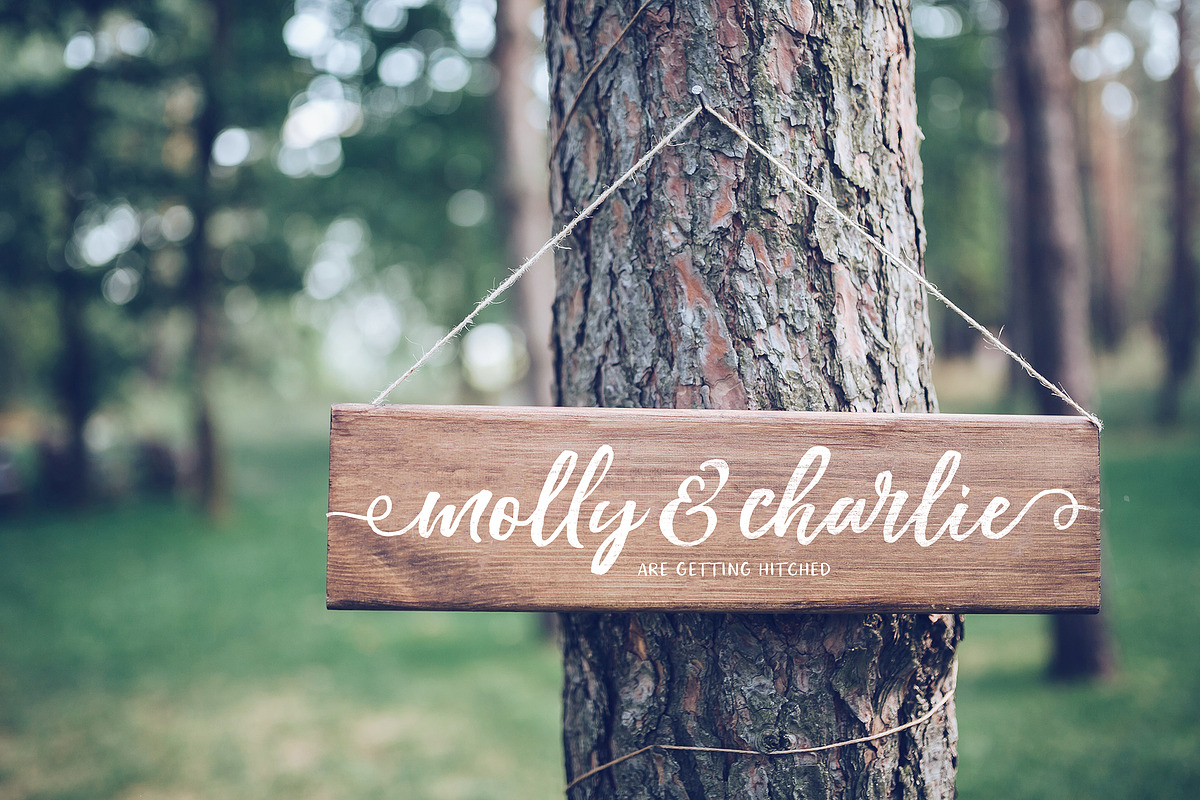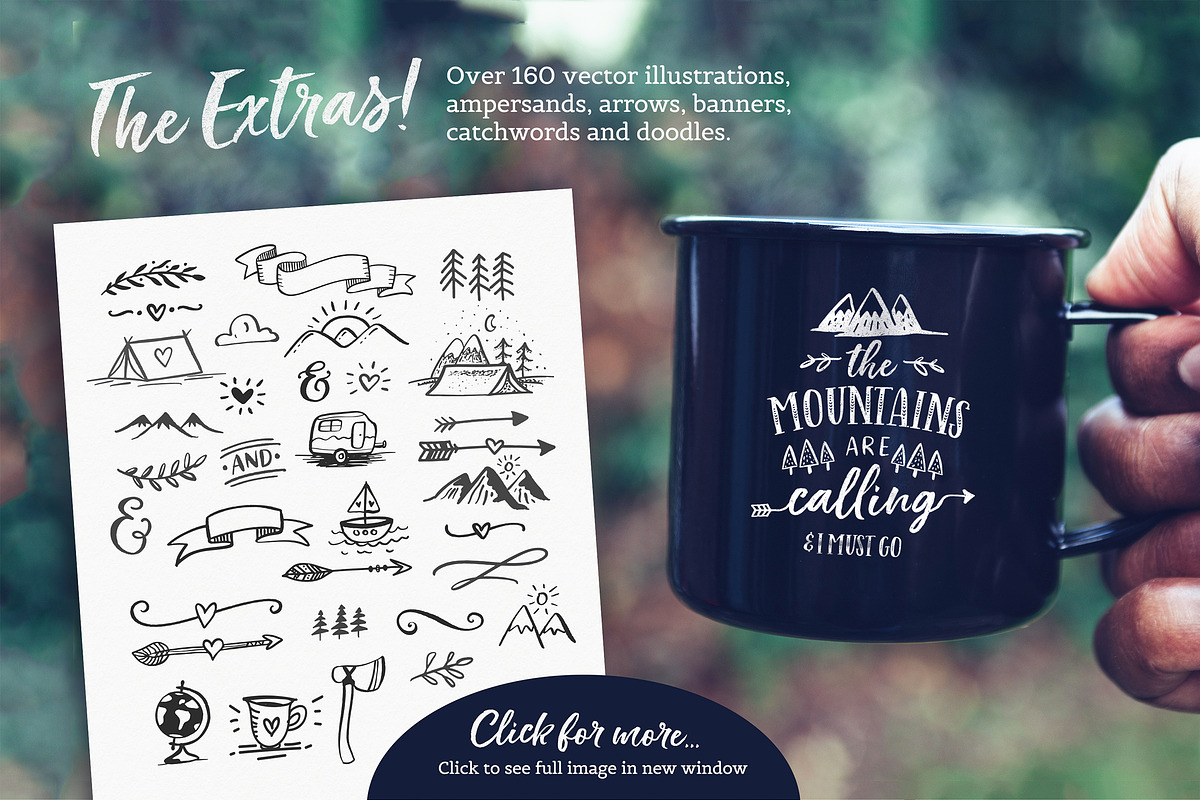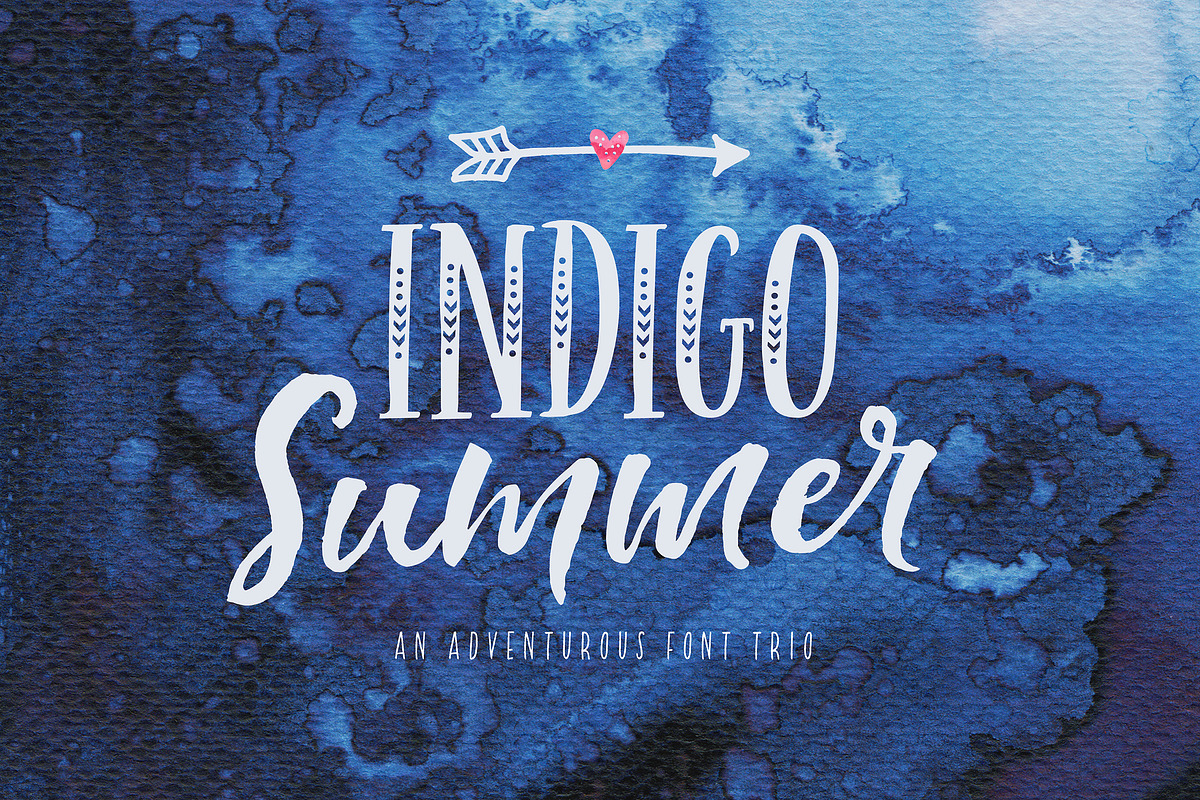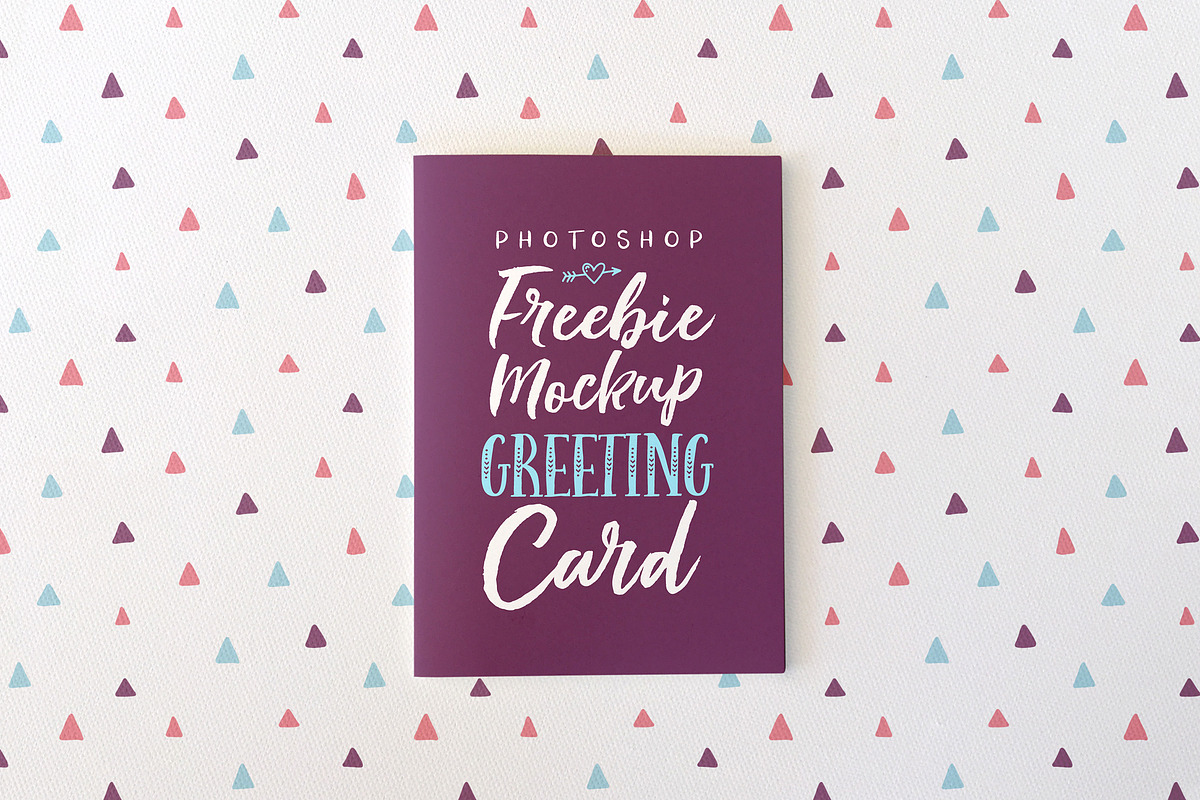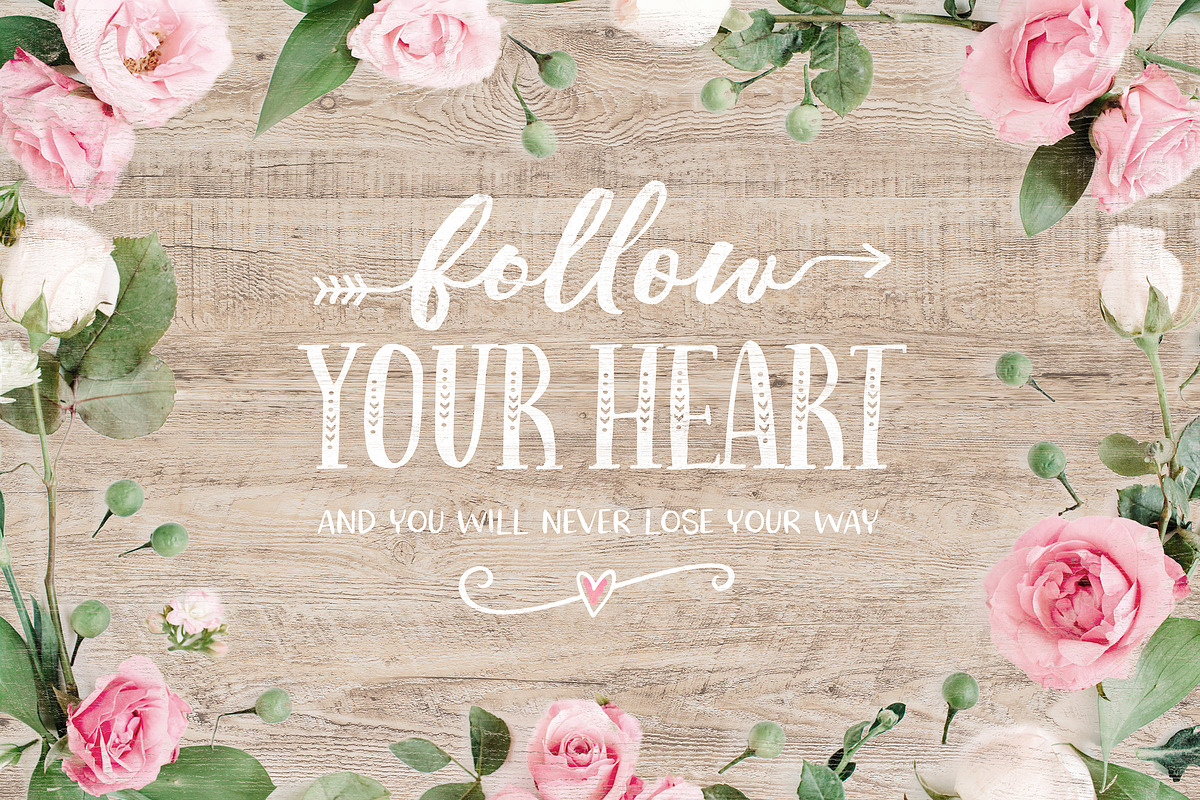
Indigo Summer Font Trio
Indigo Summer Font Trio by Nicky Laatz is a font selected for branding, posters, packaging, typography.
- ❥ 160 FUN ILLUSTRATIONS & Dingbat Fonts that don't require special software : To add to the adventure and fun you will be having with this p
- ❥ END and BEGINNING swashes : From rustic arrows to twirly curls, you can choose between 8 lovely end swash sets to add onto your lowercase
- ❥ ALTERNATE letters : The script has a full set of lowercase alternate characters and double letter ligatures to make your design look super
Why Indigo Summer Font Trio is worth a look
Indigo Summer Font Trio by Nicky Laatz fits naturally into Branding, posters, packaging, typography.